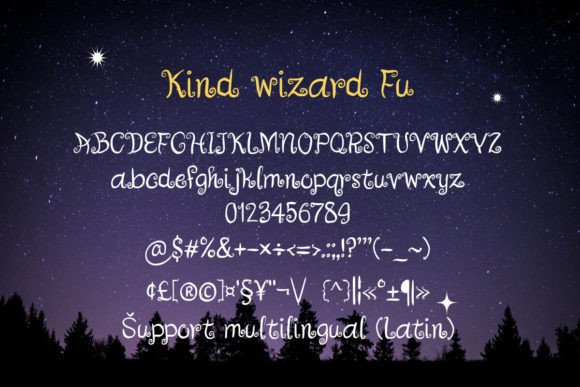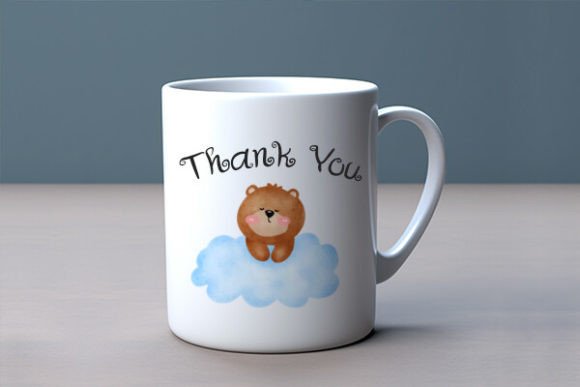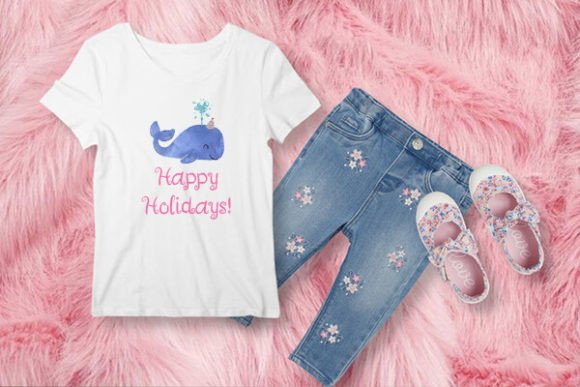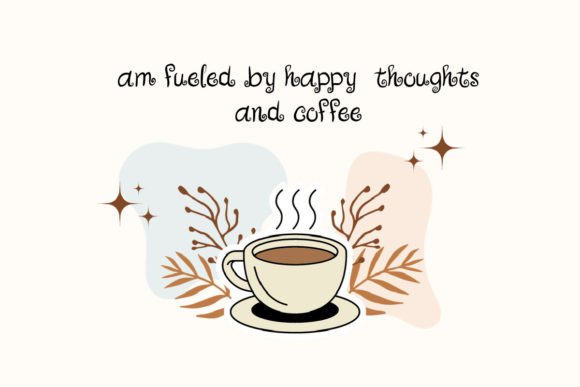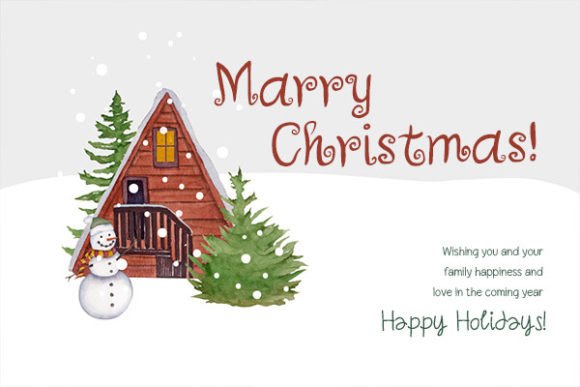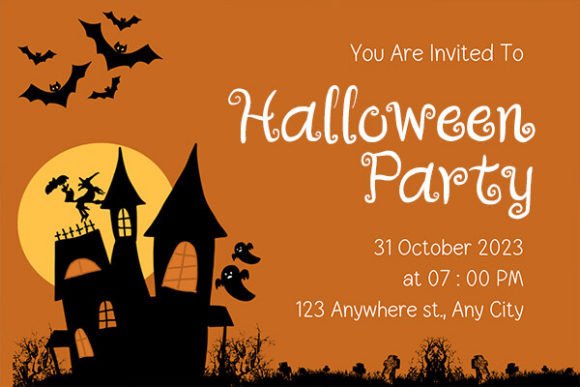
Introduction to Kind Wizard Fu Font
Kind wizard Fu is designed in a cute and playful sans serif font style.
It’s charming, whimsical, and a bit quirky It would be awesome to your fun projects or headlines, party invitations, Fall, Halloween, Christmas, posters, blogs, clothing, social media posts or anything that needs a friendly touch.